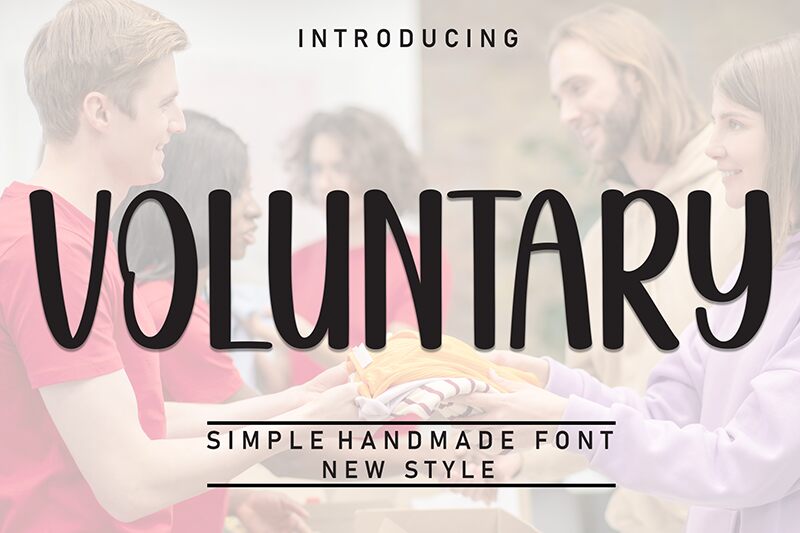
Voluntary
Voluntary font, crafted by Scratchones, is a free calligraphy masterpiece that exudes elegance and sophistication. Its flowing lines and refined curves evoke a sense of grace, making it ideal for projects that require a touch of elegance. The exaggerated loops and slender strokes showcase its expanded style, perfect for captivating headlines or artistic invitations.
This font is suited for branding, wedding stationery, and social media posts where an eye-catching yet classy aesthetic is desired. With its graceful flair, the Voluntary font invites you to explore creative possibilities in both personal and professional design endeavors. Download this free font to add a sophisticated charm to your next project.